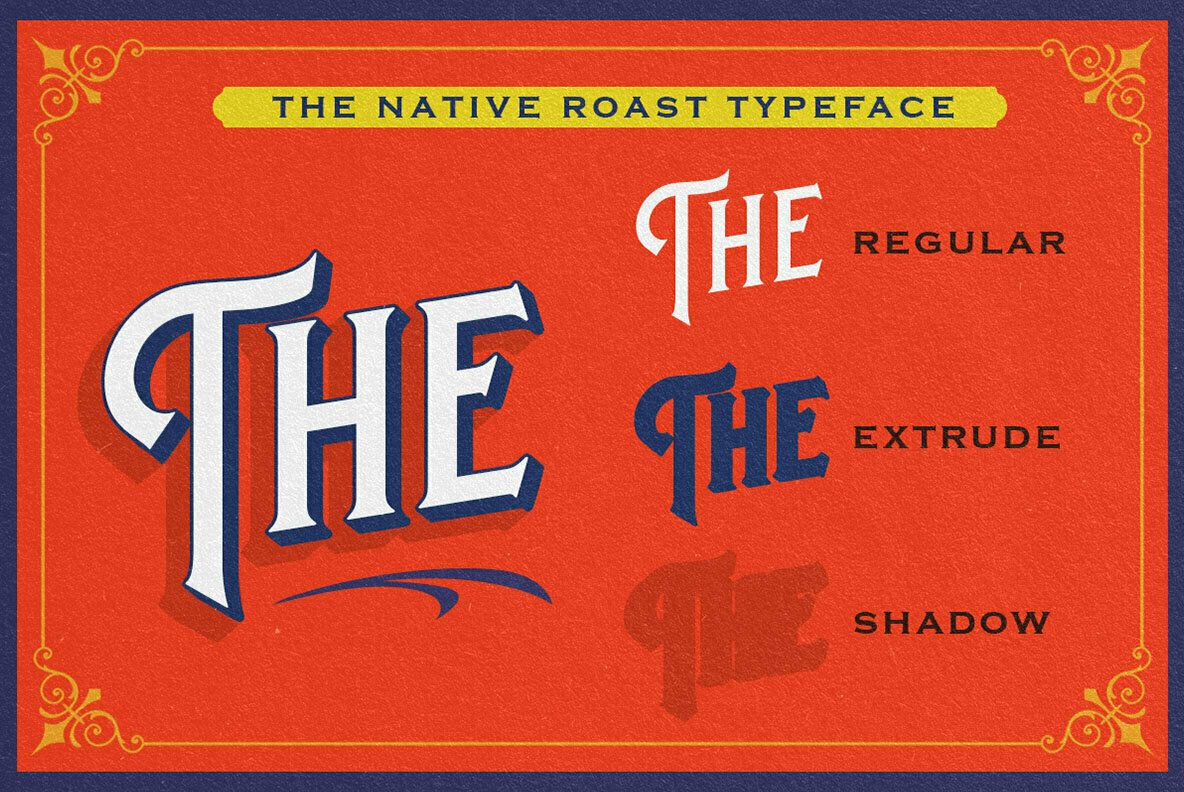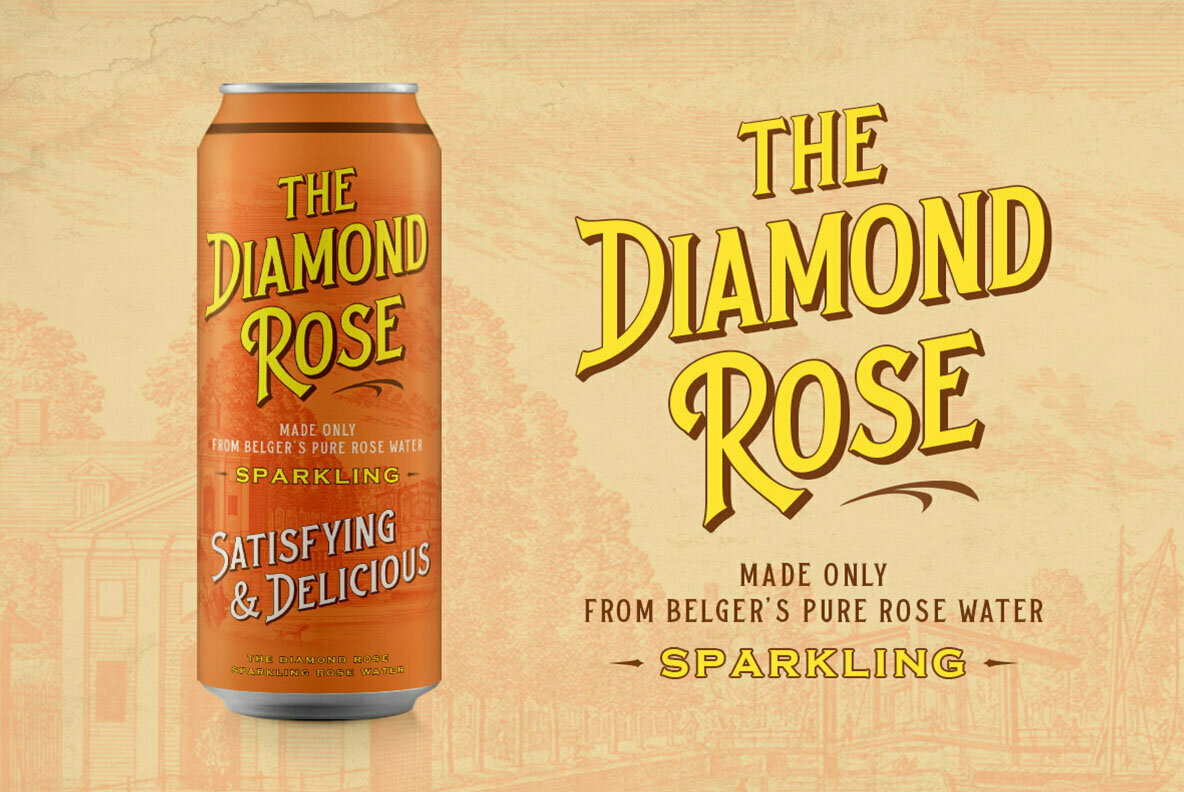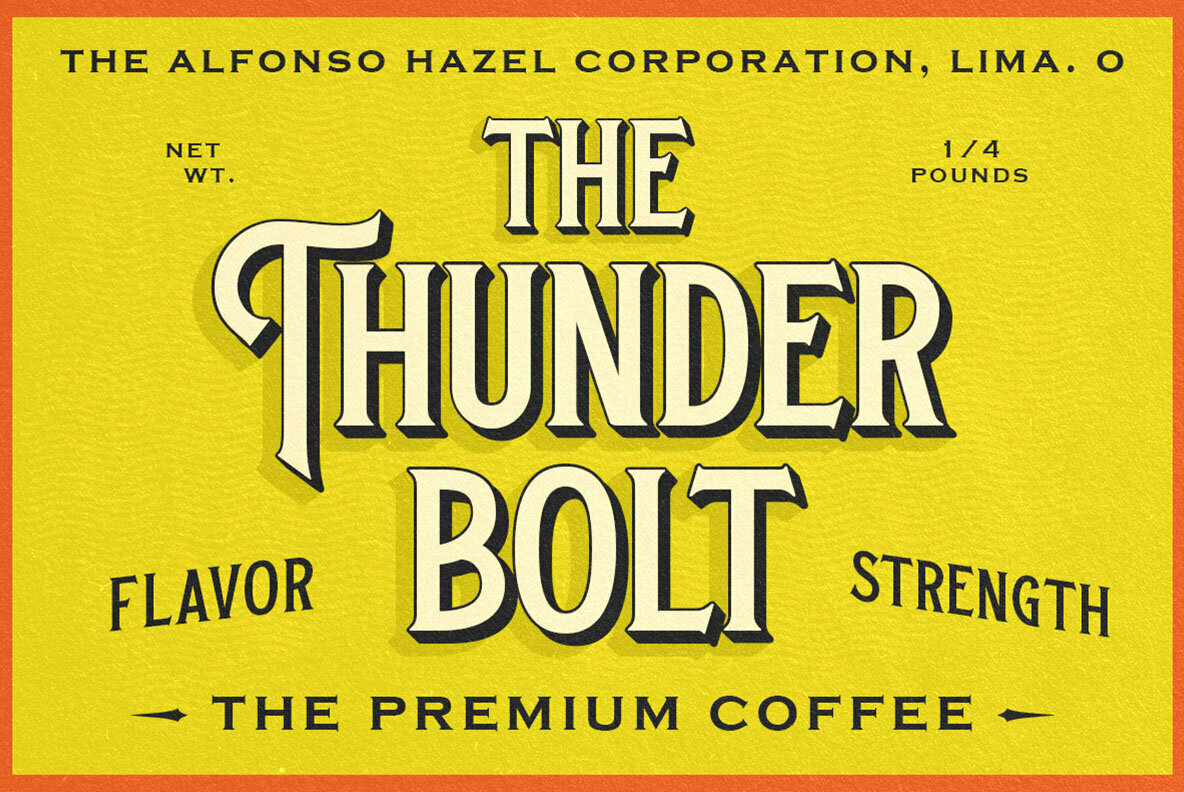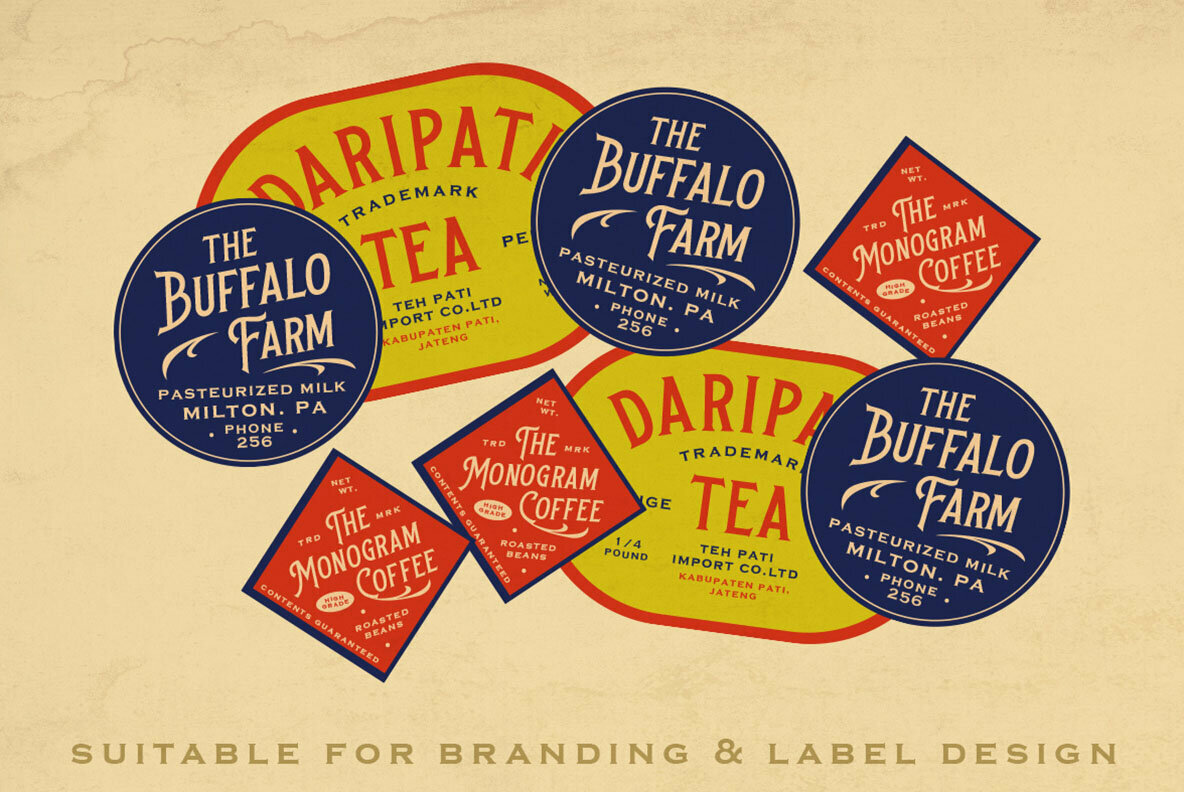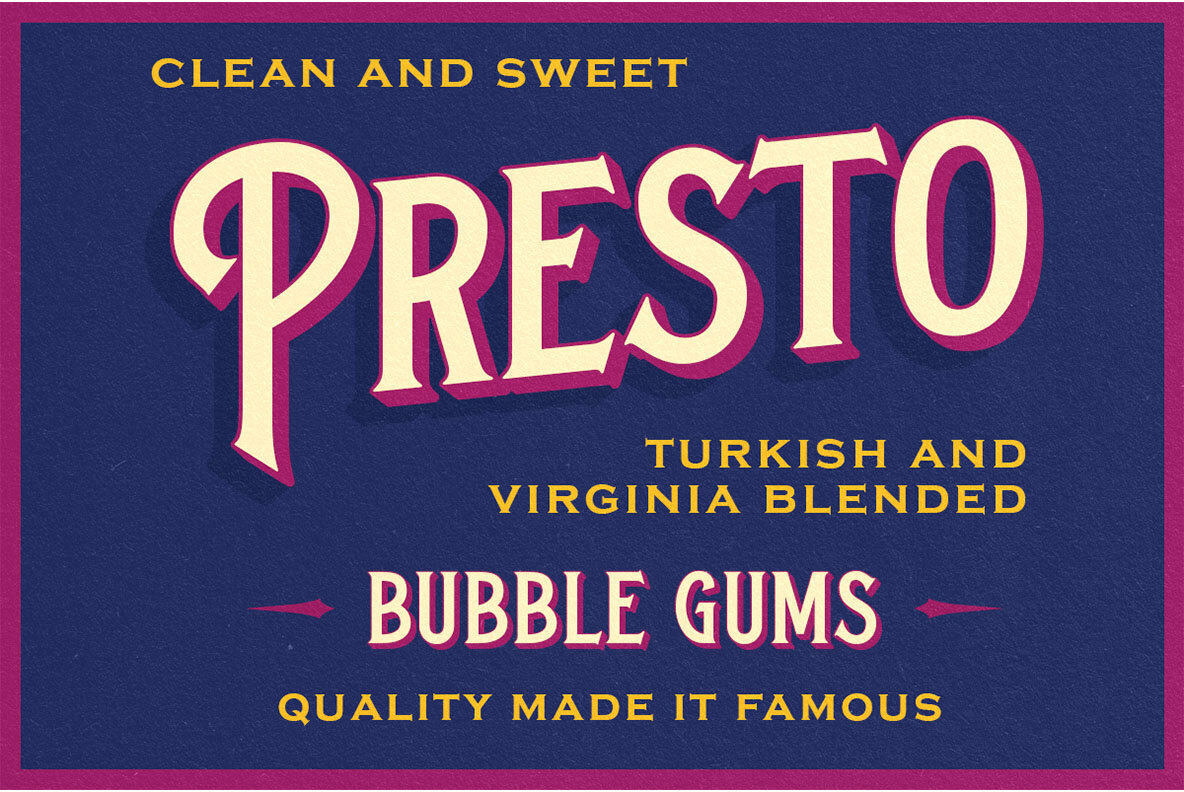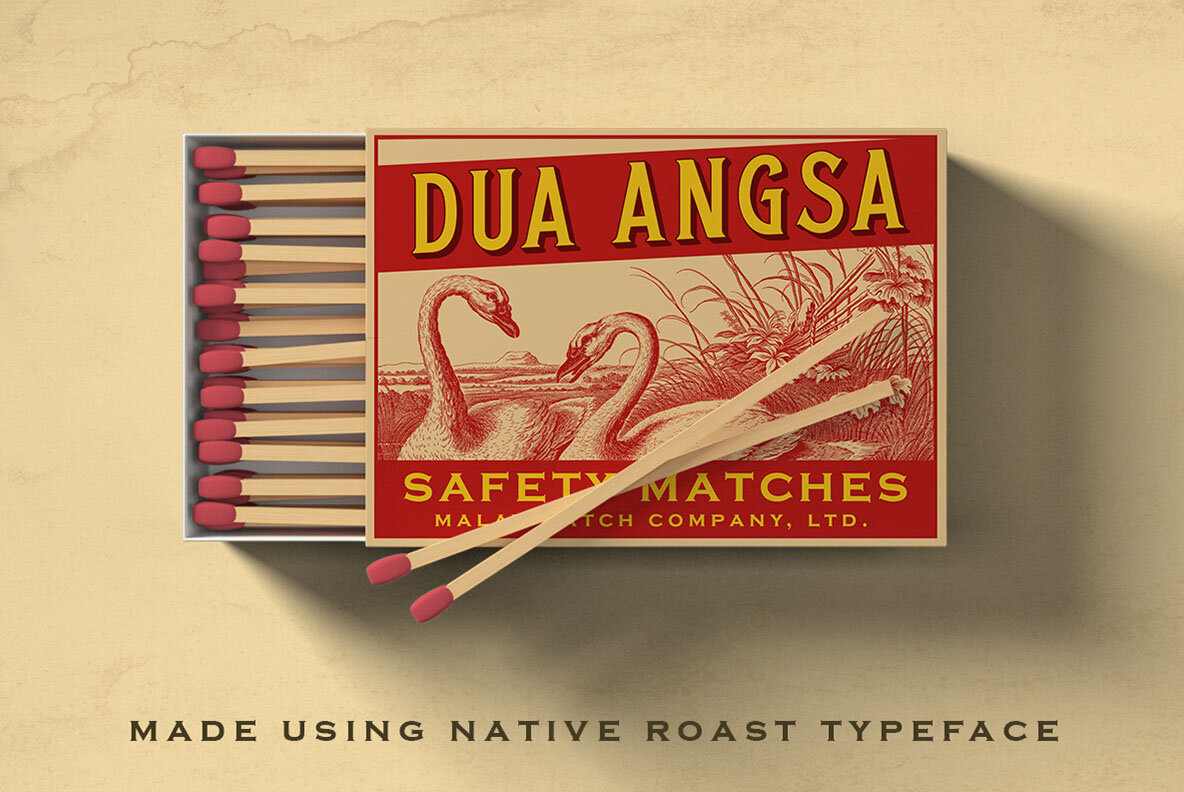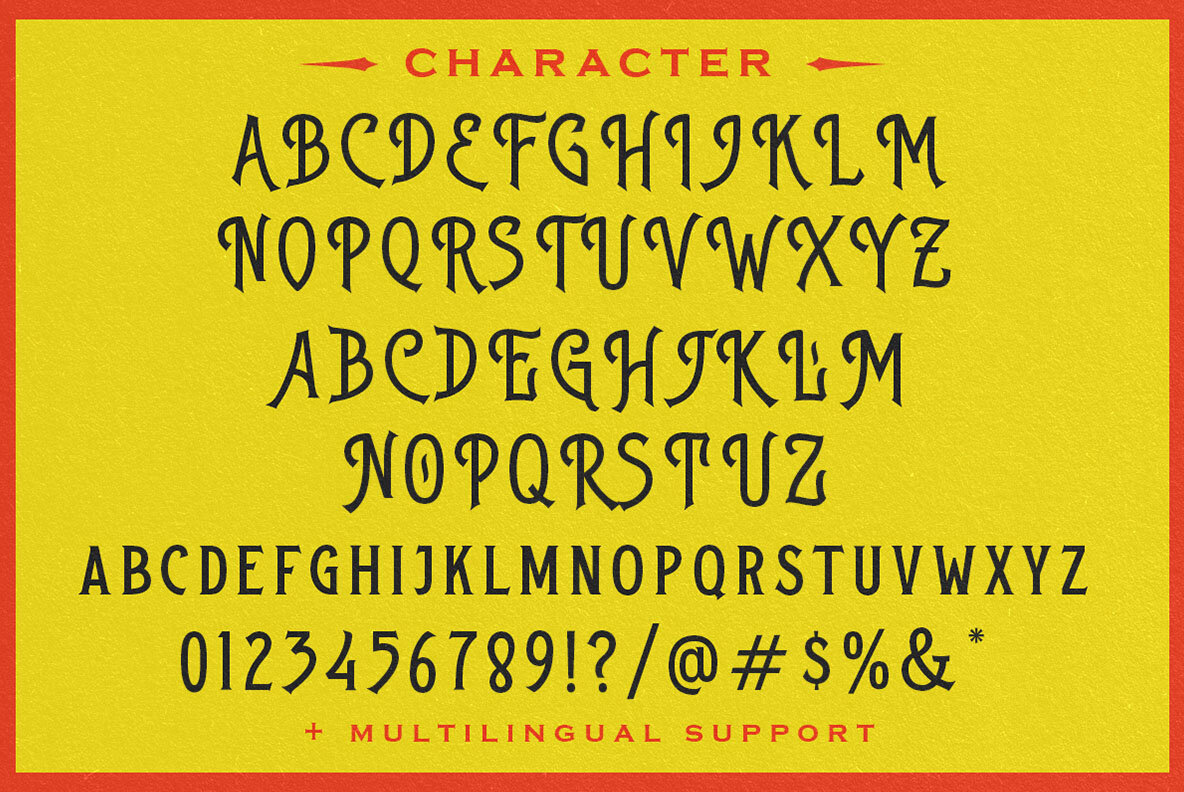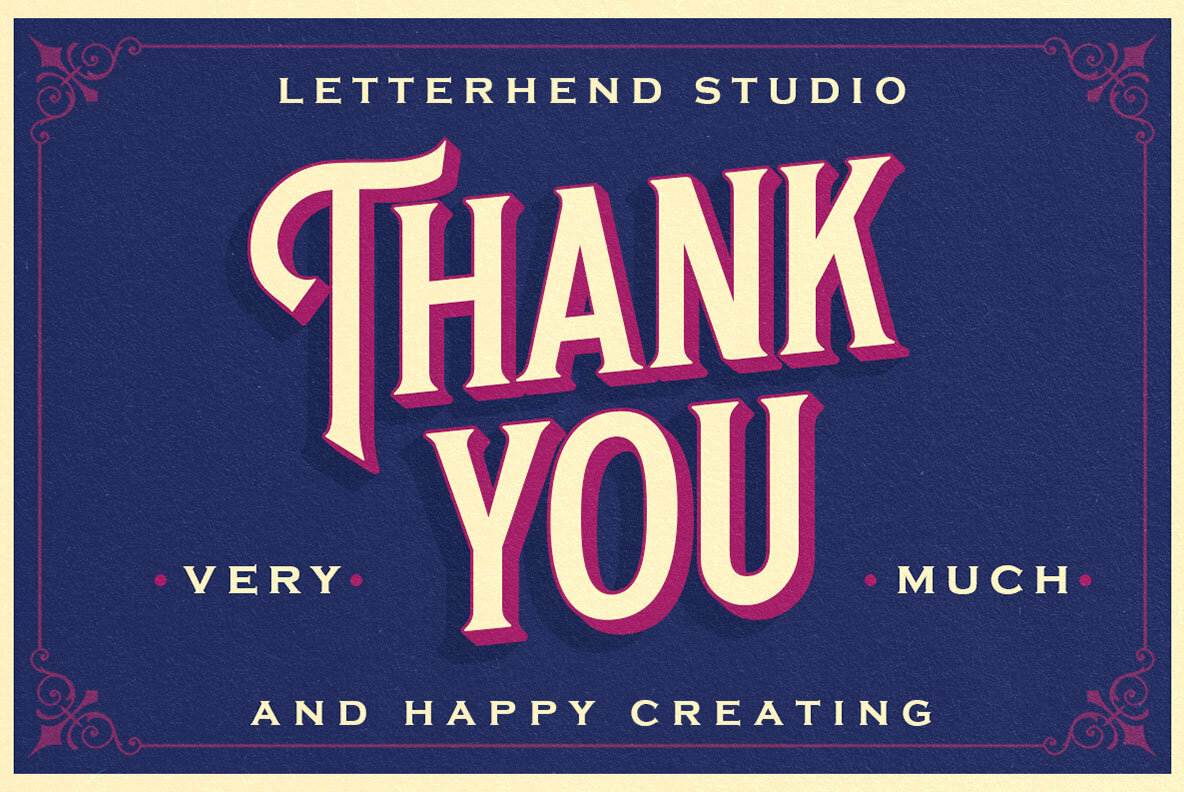
Native Roast Font
Native Roast Regular
Native Roast Extrude
Native Roast Shadow
Native Roast presents a distinct serif typeface with a layered design, allowing you to craft a retro 3D aesthetic effortlessly. Its sophisticated style is well-suited for vintage posters, retro themes, and dimensional typography, bringing a unique charm to your creative projects.Native Roast: Vintage 3D Serif Elegance